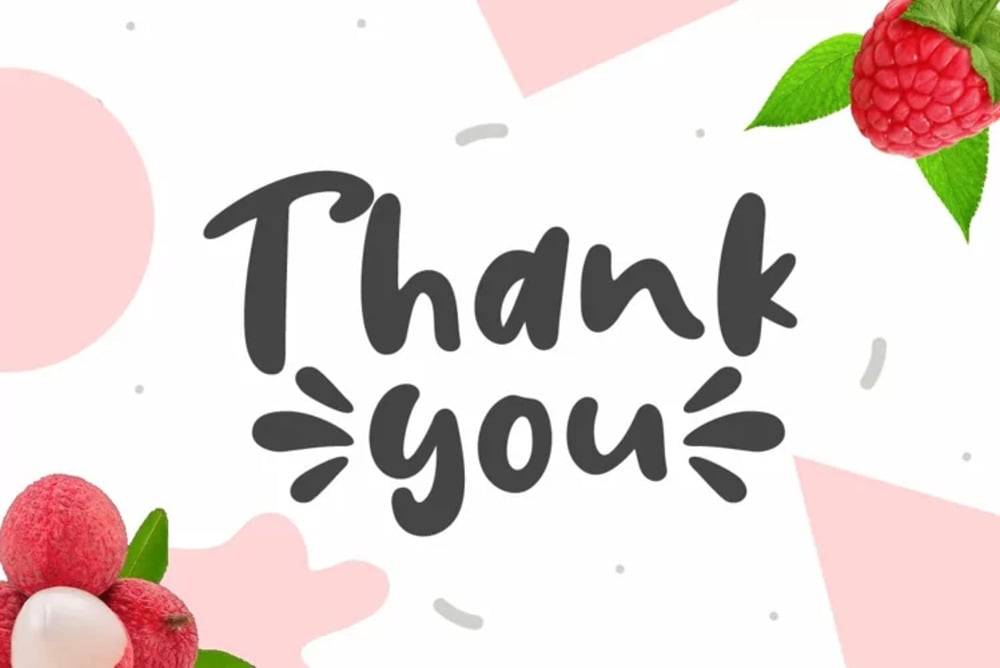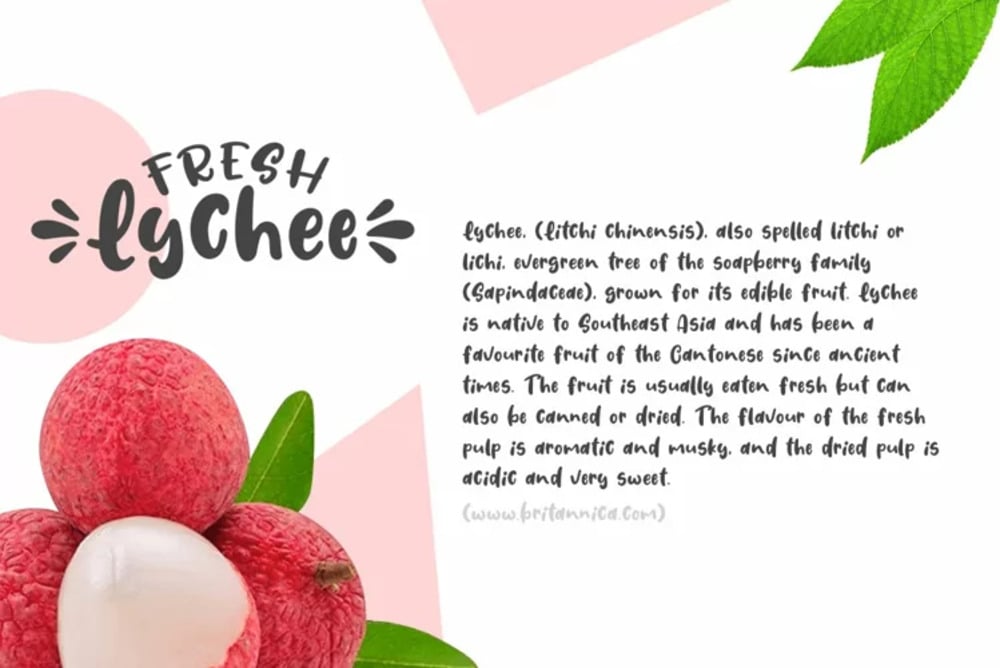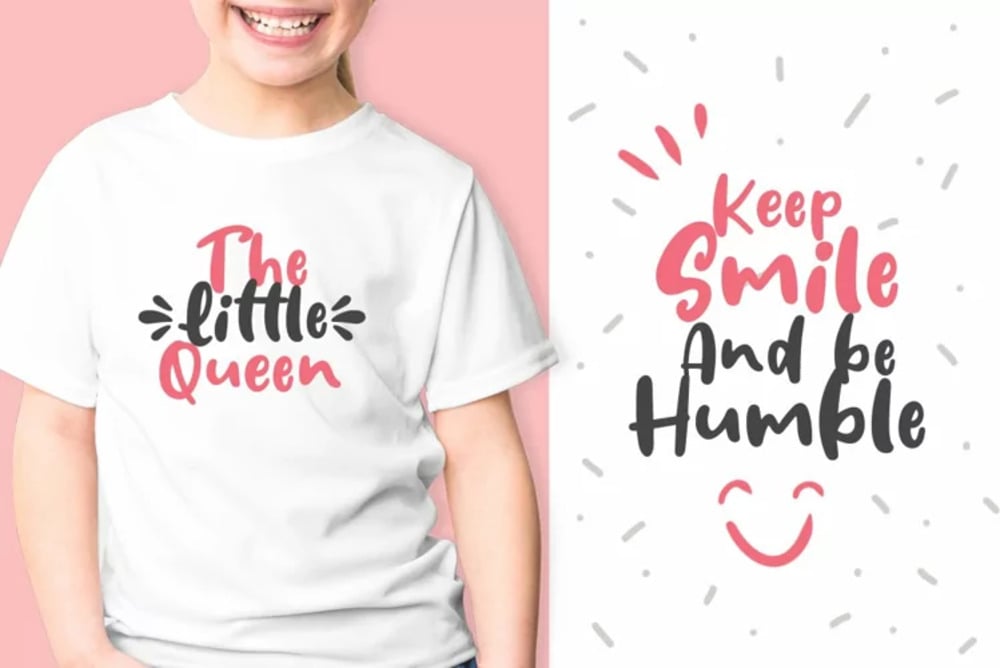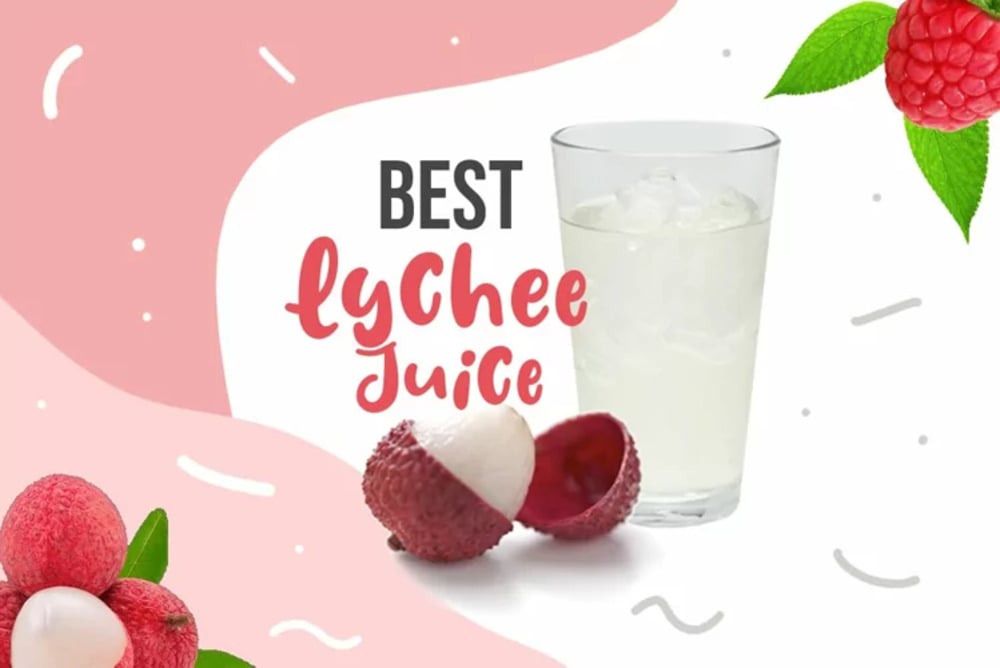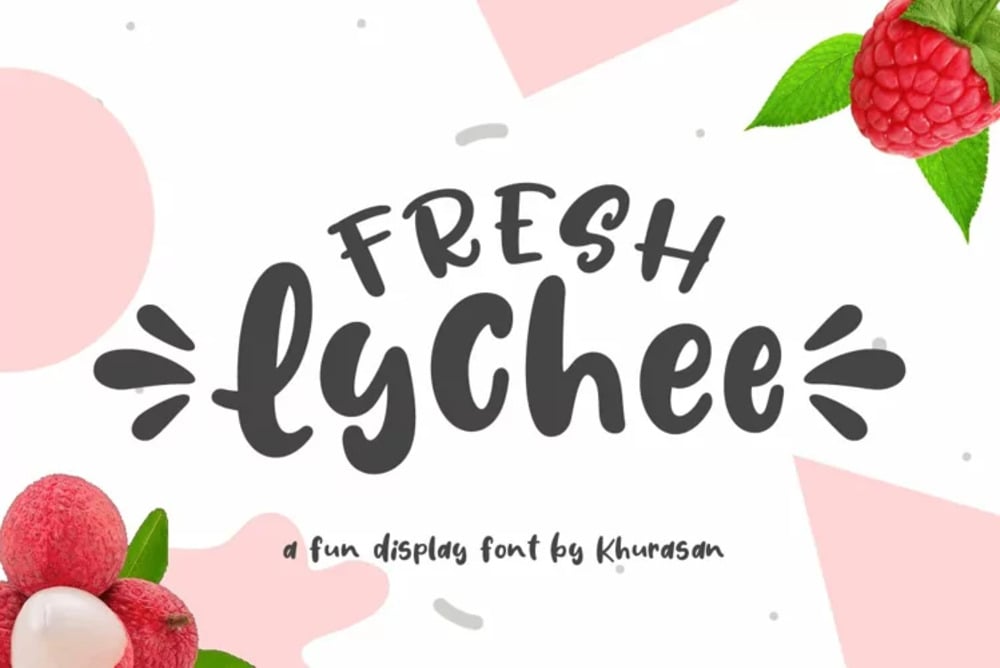
Fresh Lychee Font
Fresh Lychee is a playful and modern display font bursting with energy and charm. Its rounded, bubbly letterforms create a friendly and inviting feel, perfect for branding, packaging, and creative designs. With a fresh, youthful vibe, it adds a touch of fun and uniqueness, making any text stand out with personality and warmth.